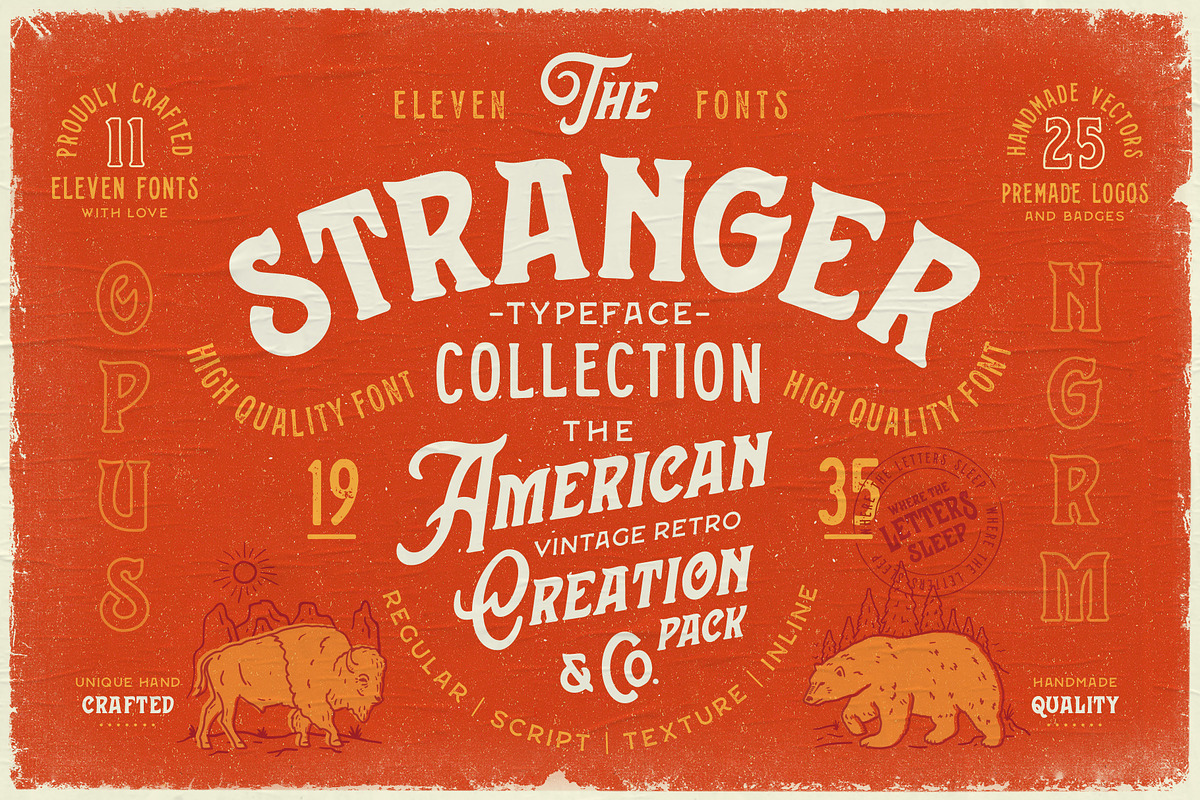
Unleash the wild spirit of the frontier with STRANGER Font Collection — a bold, character-driven typeface family forged in the fires of vintage Americana, old denim labels, dusty western ads, and the mysterious allure of apothecary lore. Born as a powerful evolution from the acclaimed Bohemian Alchemist, STRANGER isn’t just a font — it’s a statement. It’s raw, rebellious, and deeply expressive. With a fresh collection of 12 distinctive fonts, it’s designed for creatives who demand personality, depth, and instant visual impact in every project.
A Typeface Rooted in History, Built for Modern Design
STRANGER draws its soul from the past but speaks to the present. Each font in the collection tells a story — of faded jeans, hand-painted signs, leather-bound journals, and frontier spirit. The textures feel lived-in, the lines carry weight, and the letterforms exude authenticity. This isn’t digital perfection. It’s handmade imperfection with purpose. Whether you’re crafting a grungy band poster, a rustic food label, or a high-end fashion logo, STRANGER adds instant grit, soul, and narrative depth.
12 Unique Fonts for Unmatched Versatility
With twelve distinct styles, STRANGER offers unparalleled creative freedom. Mix and match to find your perfect voice:
- STRANGER Regular – The foundation: clean, strong, and ready to dominate headlines and branding.
- STRANGER Texture – Adds weathered, rough-paper depth for a truly hand-crafted look.
- STRANGER Inline – A lean, elegant outline style perfect for minimal yet bold designs.
- STRANGER Script – Flowing, handwritten flair for labels, quotes, and invitations.
- STRANGER Script Texture – The textured version of the script for maximum character.
- STRANGER Script Inline – Delicate, expressive lines for fine art and personal branding.
- STRANGER Slim – A sharp, narrow profile for modern, high-contrast layouts.
- STRANGER Slim Texture – Slim with added vintage wear for added drama.
- STRANGER Wide – Expansive and bold — perfect for poster headlines and large-scale visuals.
- STRANGER Wide Texture – The wide format with rich, aged textures.
- STRANGER Drawings – Artistic, hand-sketch elements ideal for custom logos and packaging.
Ideal for High-Impact Creative Applications
Whether you’re designing for food brands, fashion labels, music events, or editorial projects, STRANGER transforms your concept into a visual experience:
- Logos & Branding – Build a unique brand identity with fonts that scream authenticity and craftsmanship.
- Flyers & Posters – Command attention with bold, textured headlines and dramatic layouts.
- Invitations & Greeting Cards – Add emotional depth and personal flair to special events.
- Apparel & Clothing Labels – Give your garments a story. Make the label the centerpiece.
- Product Packaging – Create artisanal appeal for handmade goods, craft beers, candles, and more.
- Web & Digital Graphics – Use selectively for hero sections, banners, and social media posts.
Seamless Workflow. Instant Inspiration.